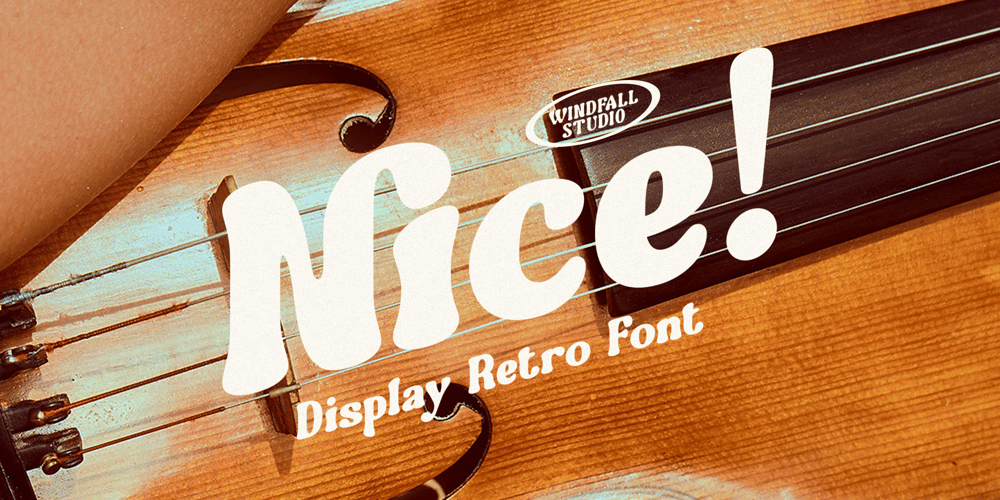
Nice
Nice Font Family was designed by Anggia Putri Premitasari and published by Windfall Studio. Nice contains 1 styles and family package options. Introducing Nice, a display retro font by Windfall Studio that encapsulates the essence of vintage charm and modern design. Nice is your go-to font for projects that require a bold and stylish touch. Its unique, eye-catching design makes it perfect for everything from headlines and posters to branding and advertising.Nice combines a classic retro feel with contemporary flair, making it ideal for a wide range of creative projects. Its bold, chunky letters are perfect for grabbing attention, while its smooth curves and clean lines add a touch of sophistication. Use Nice to create stunning visuals for your social media posts, marketing materials, product packaging, and more.Designed with versatility in mind, Nice is easy to use in any design software, including Adobe Illustrator and Photoshop. Its striking appearance ensures that your text stands out, whether you’re working on large-scale prints or digital designs.For those searching for keywords like retro, display, bold, vintage, stylish, eye-catching, and versatile, Nice is the perfect font. Elevate your designs with Nice and let its retro charm and modern elegance bring a unique and captivating look to your projects.